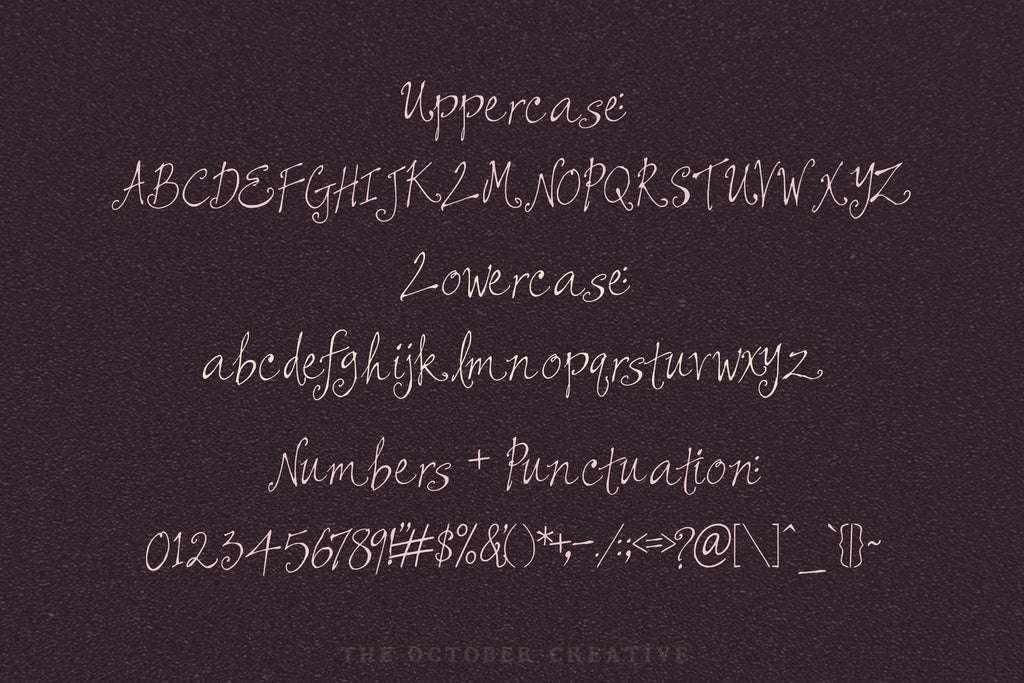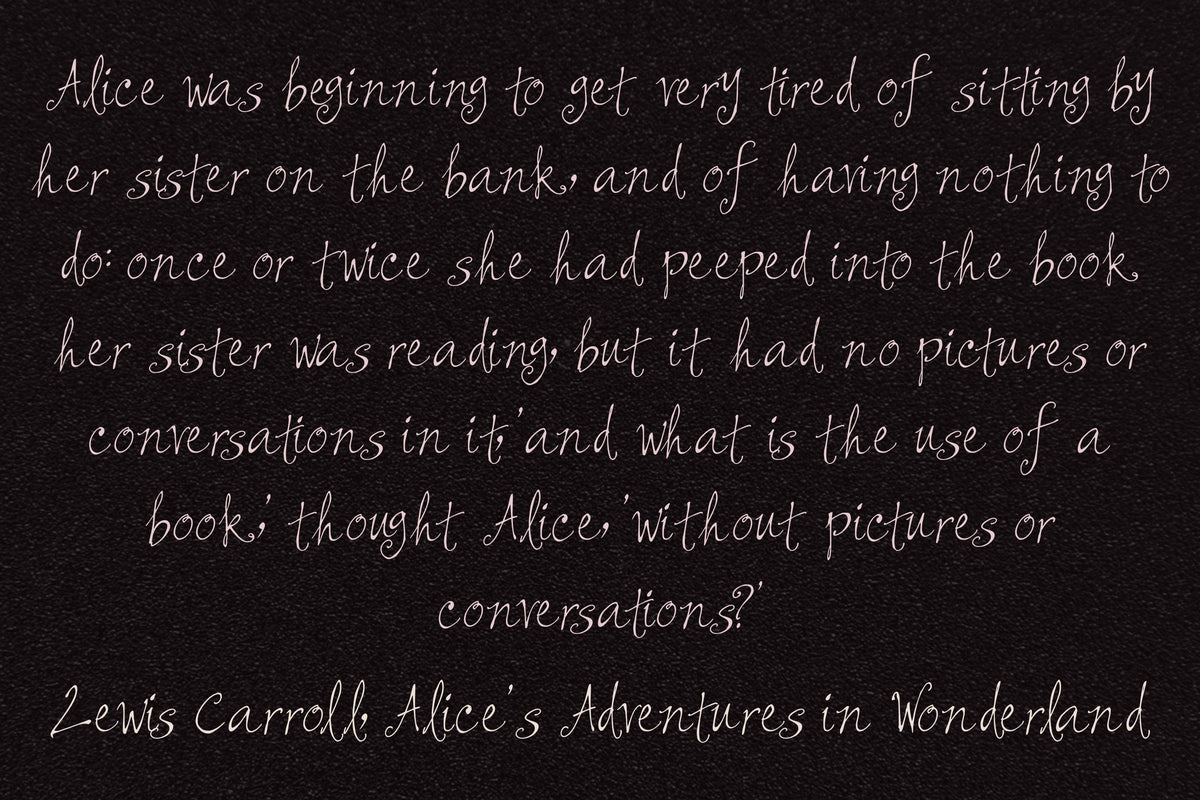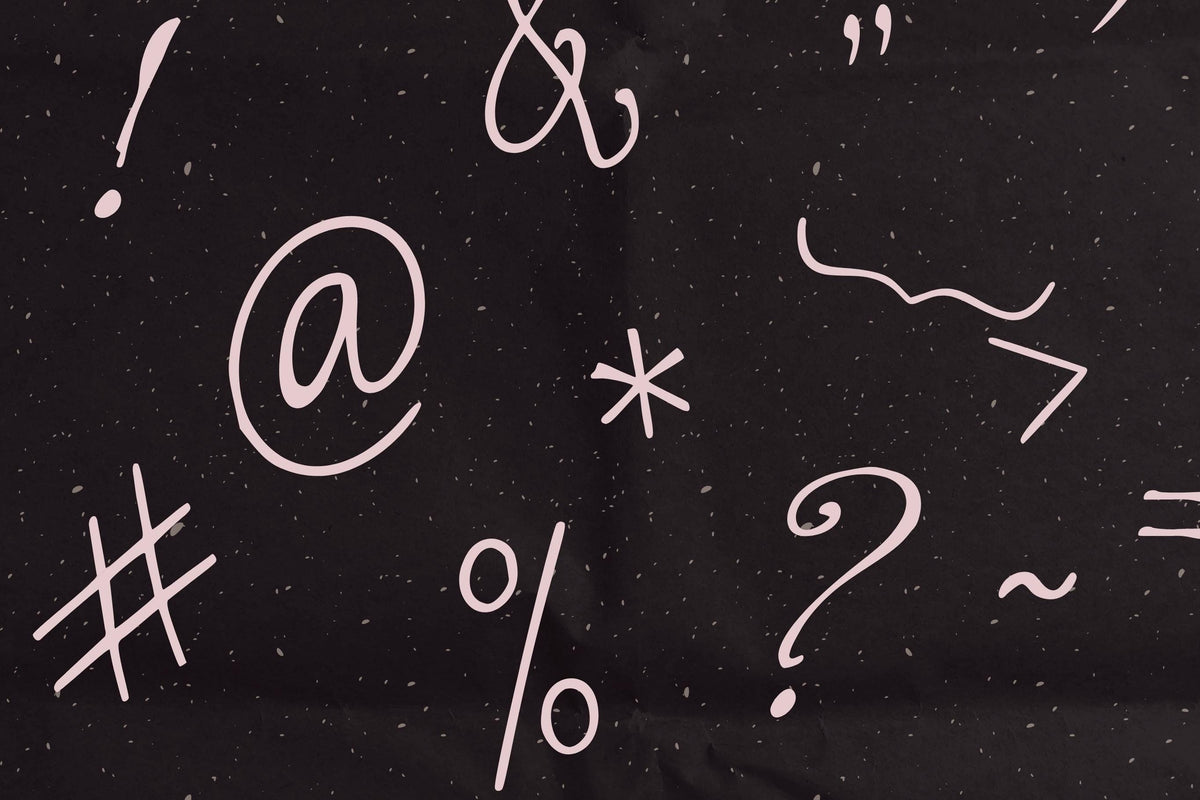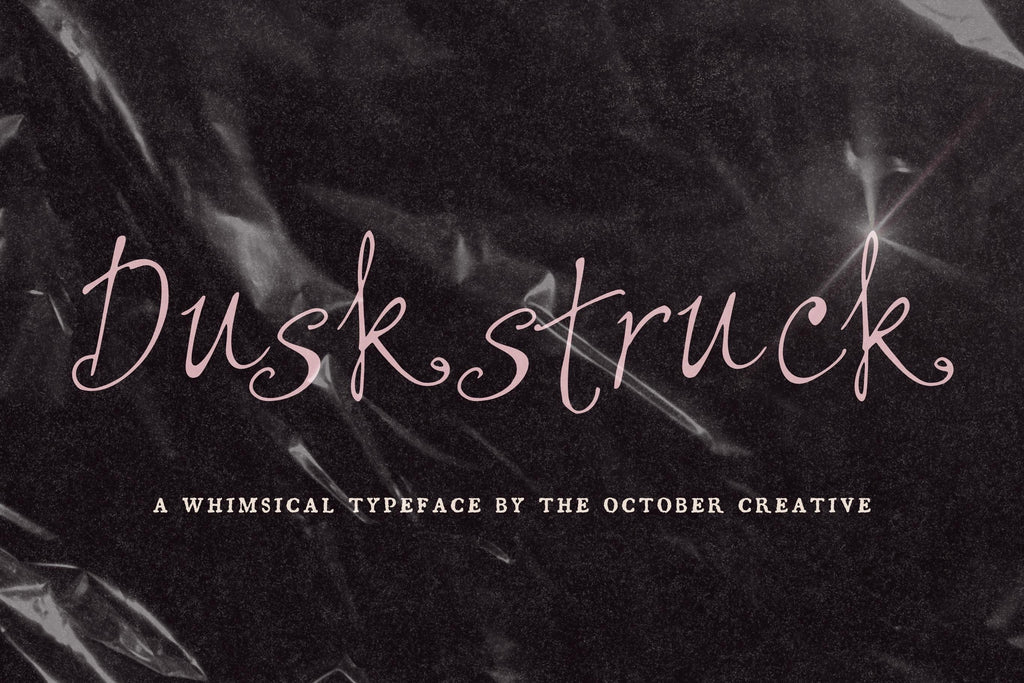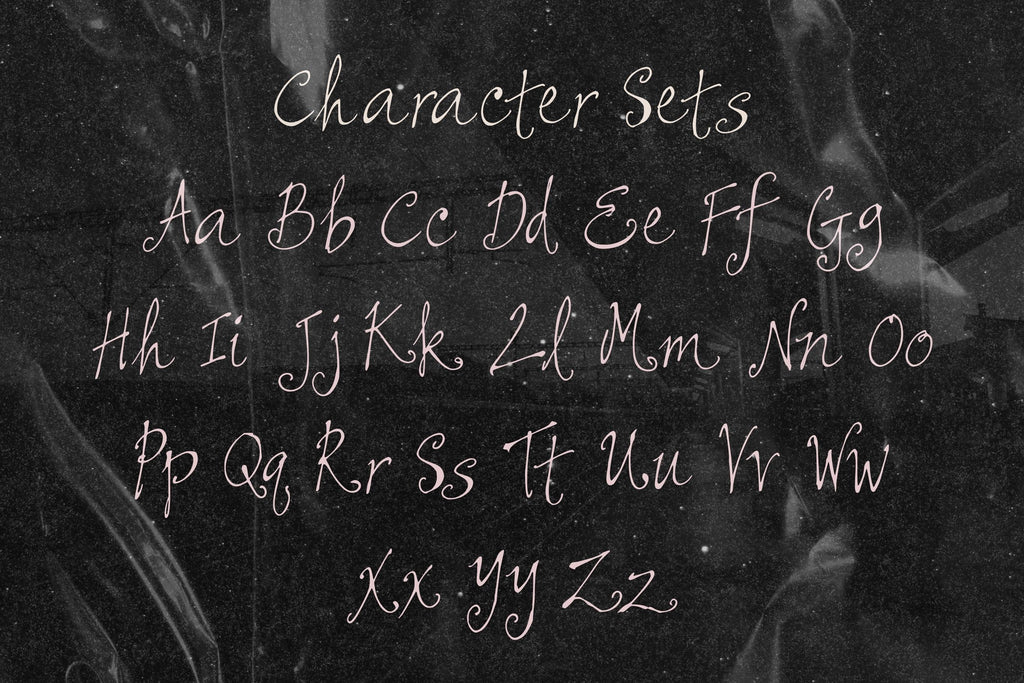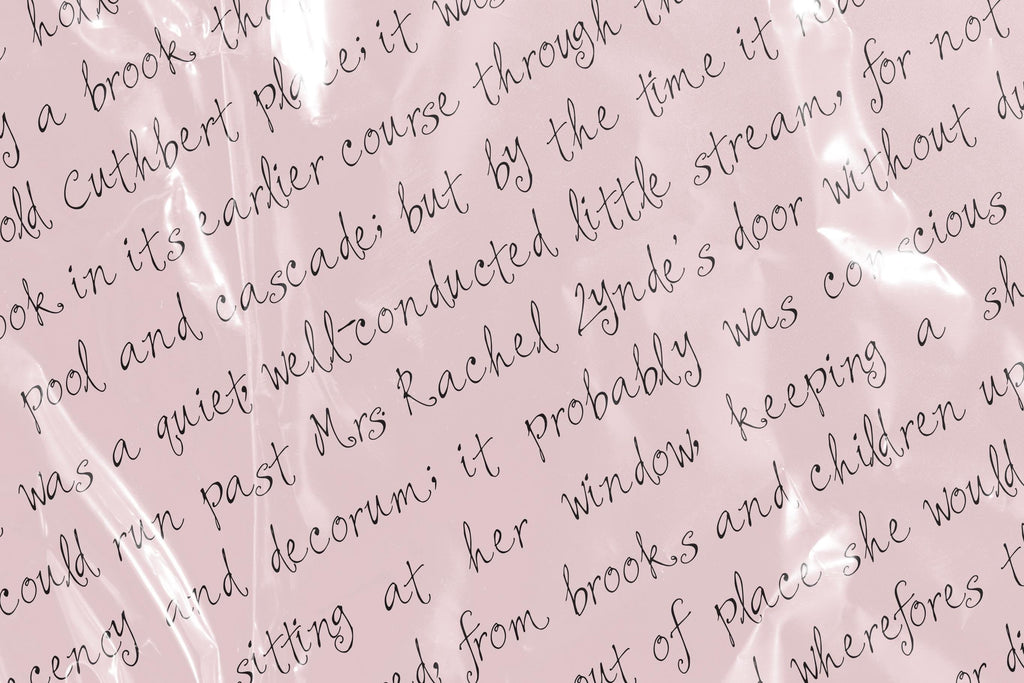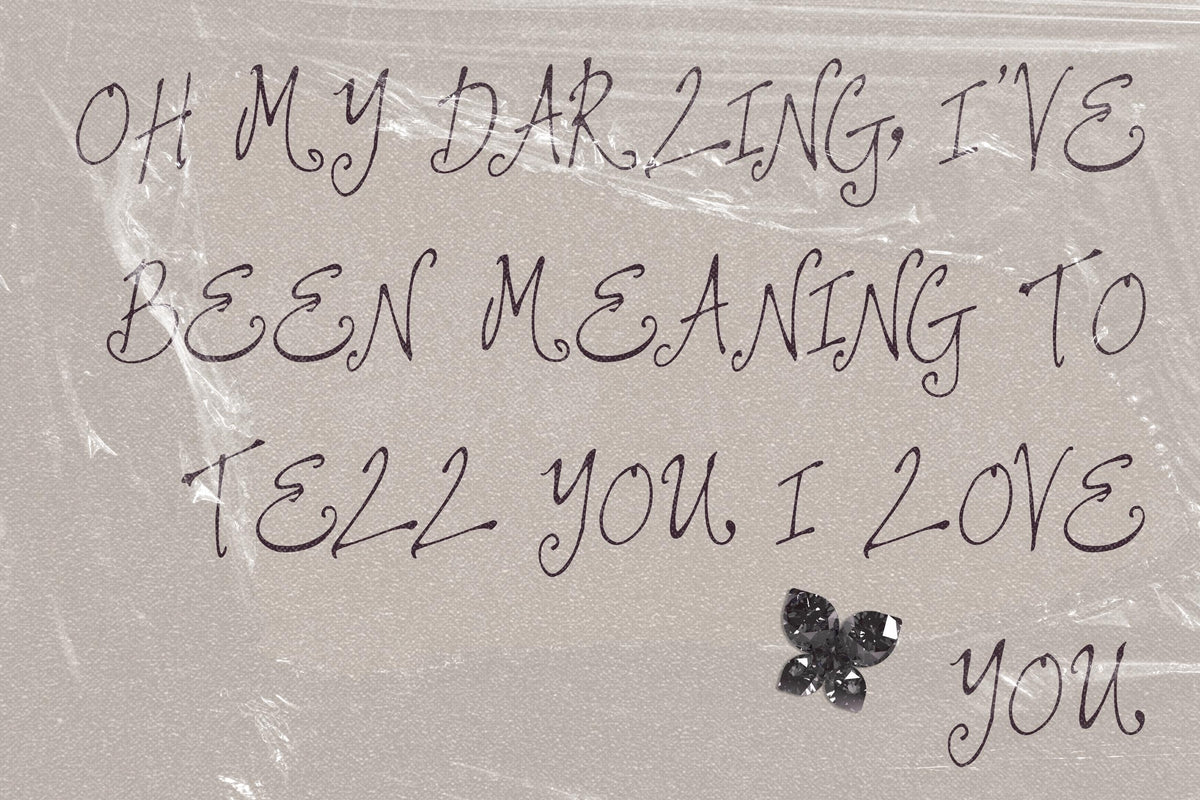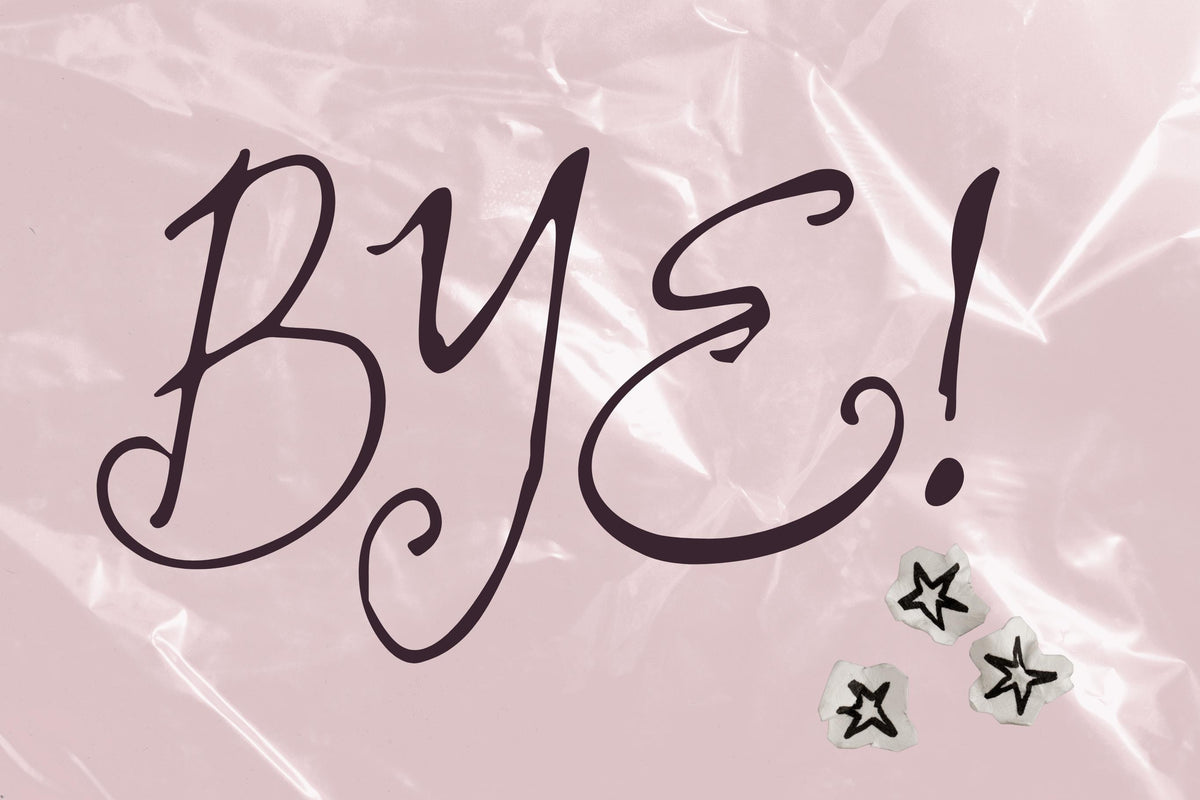
Duskstruck Font
Duskstruck is a slanted calligraphy font with pen-nib thick and thin strokes and loose flourishes on the capitals. It's a good match for letters, envelope addressing, poetry prints, and names on invitations.